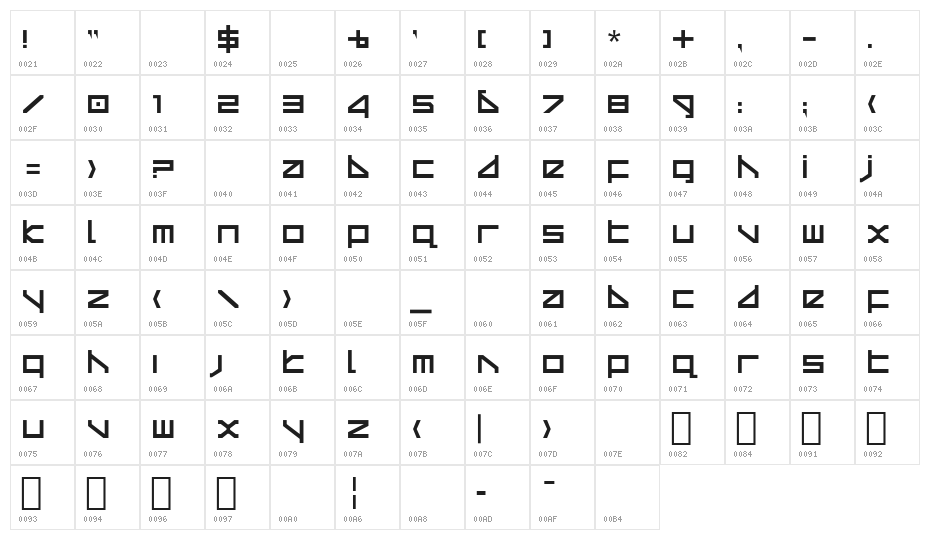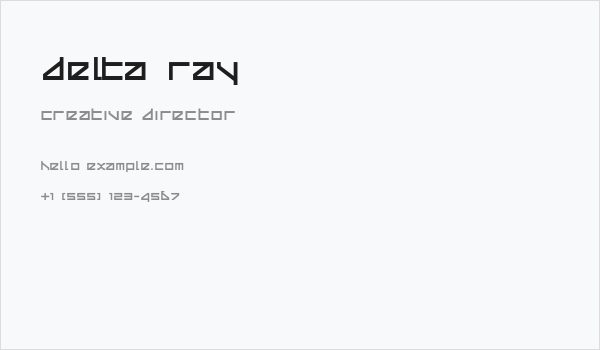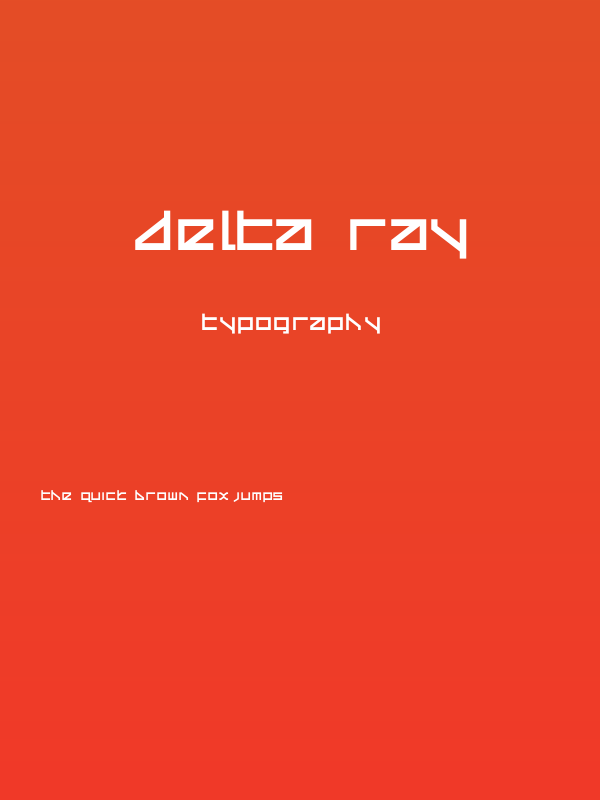
Delta Ray Font
Delta Ray Description
This font features a geometric and futuristic design, characterized by sharp angles and a consistent stroke width. The uppercase and lowercase letters share a similar structure, creating a cohesive look. The numerals and special characters maintain the angular theme, enhancing the modern aesthetic. The font's design is bold and striking, making it suitable for attention-grabbing applications. Its unique style is reminiscent of digital or sci-fi themes, with a strong emphasis on symmetry and precision. The overall appearance is clean and uncluttered, allowing for clear readability despite its decorative nature.
| Proposed Projects | Ideal for sci-fi themed projects, digital interfaces, video game titles, and tech branding. |